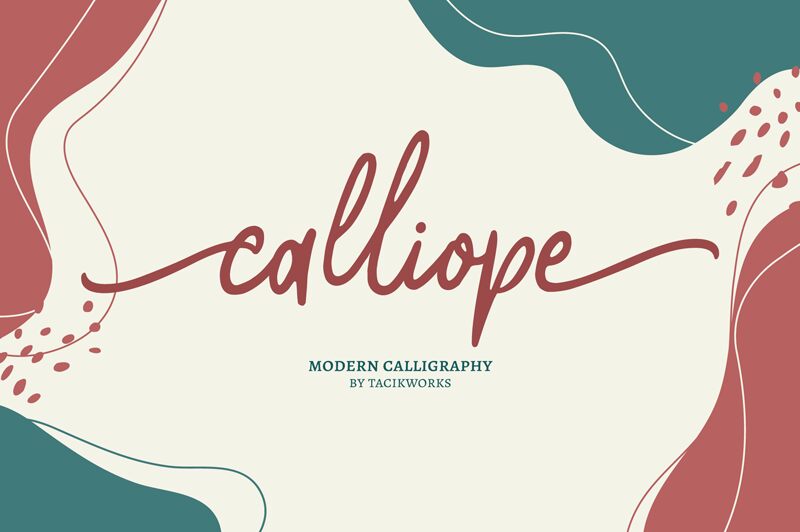
Calliope Modern
Introducing a new font called Calliope Modern Calligraphy. Calliope Modern Calligraphy inspired by handwriting calligraphy using a brushpen marker, this font has 322 types of glyphs that are able to give their own creations to designers because they have many variations of different types of letters.